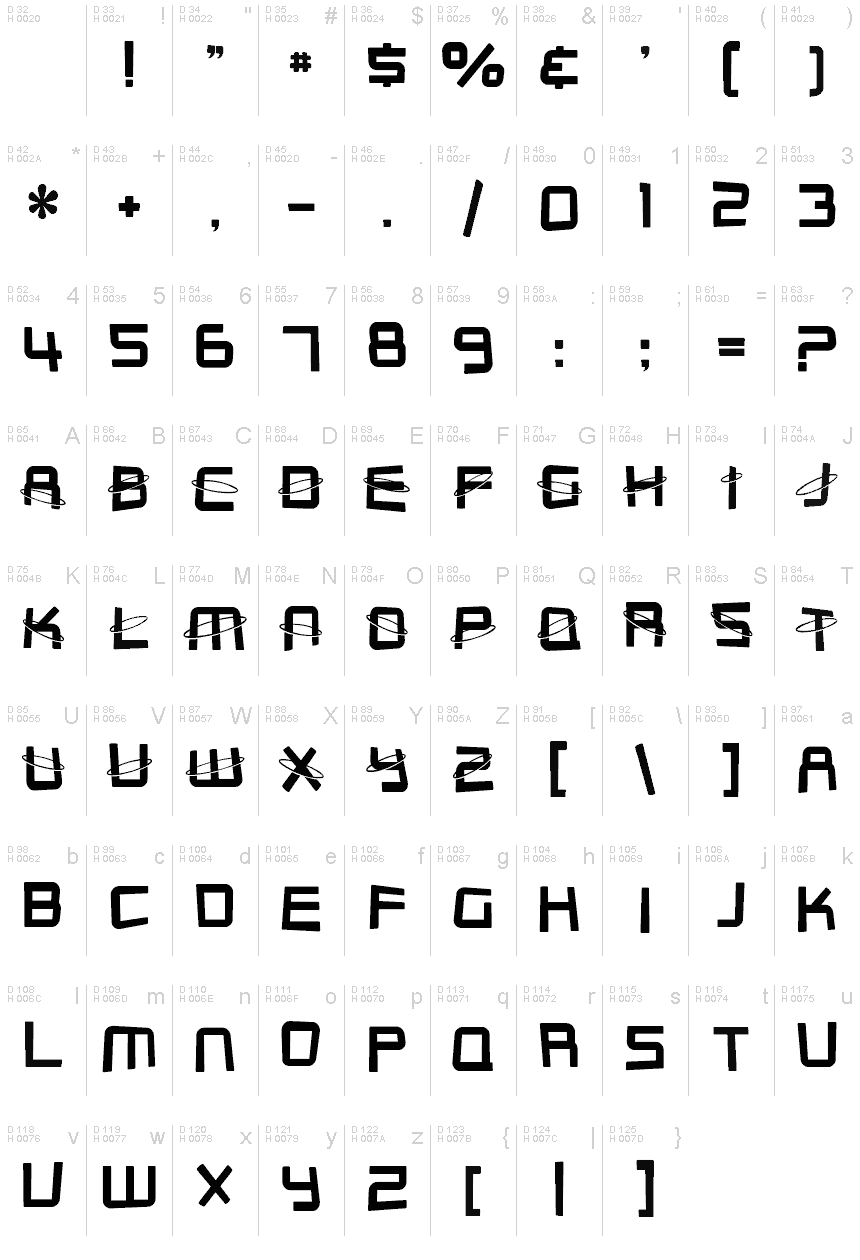
SF Outer Limits DistUpright
SF Outer Limits DistUpright, a stellar member of the SF Outer Limits font family, is a typographic journey crafted by the innovative ShyFonts Type Foundry. This display font boasts an expanded width and futuristic style that transports its audience to the cosmos of creativity. The distinct aesthetic appeal of SF Outer Limits DistUpright lies in its bold, angular lines that mimic the precision of advanced technology and extraterrestrial engineering.
The font's character set radiates an aura of modernity and sophistication, making it an excellent choice for projects that require a touch of sci-fi elegance or cutting-edge flair. Whether gracing the titles of a space opera, emblazoned across promotional materials for tech startups, or accentuating the headlines of digital publications, SF Outer Limits DistUpright stands out with its unique design language.
Its versatility across various mediums underscores its suitability for both print and digital realms where a statement-making typeface is essential. Dive into the future with SF Outer Limits DistUpright—a font not just designed but engineered to elevate your creative endeavors to interstellar heights.